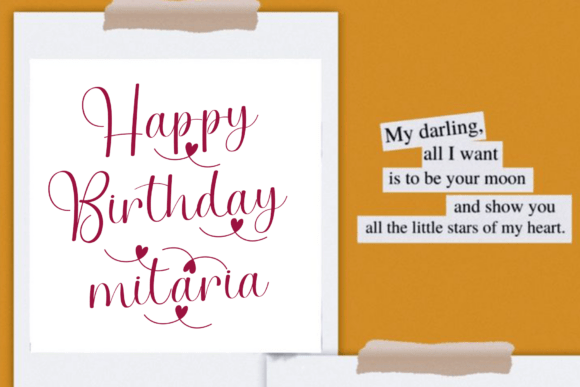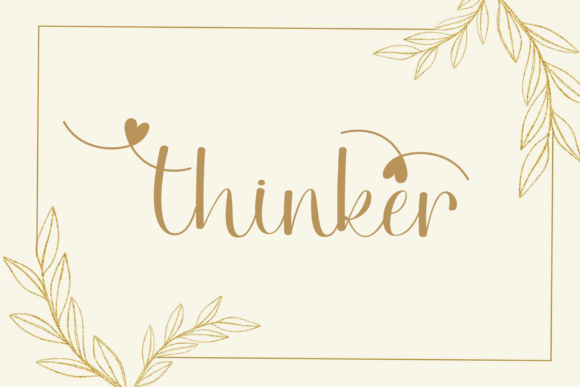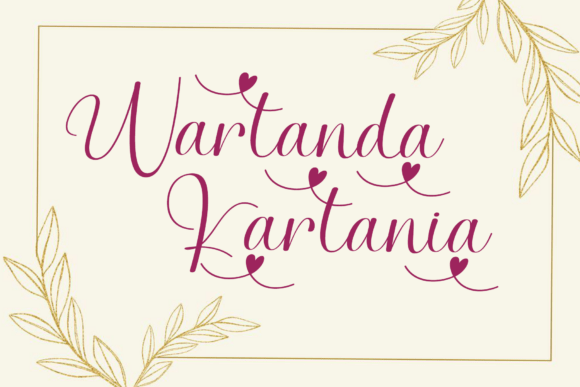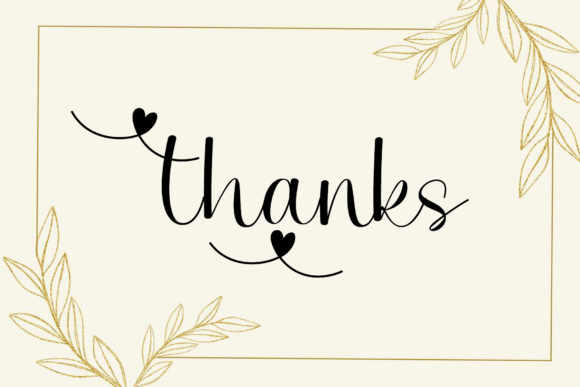
When Handwritten Style Meets Elegant Design
Do you ever find yourself doodling in a notebook, trying to capture the perfect handwritten style for a project? The search for that elusive, elegant script can be a challenge, but what if you stumbled upon a font that effortlessly combines modernity with a touch of romance?
Enter the Brilliant Calligraph Font, a stunning, modern, and stylized handwritten script font designed to elevate your designs. With its smooth, fluid strokes and lovely ornamental curves, this font is perfect for custom sublimation designs, boutique branding, and personalized gifts. Its consistent weight and clean connections ensure excellent legibility, making it a valuable addition to any designer’s toolkit.
Brilliant Calligraph Font Key Features
- Font Style: Elegant, cursive script with a touch of sophistication and whimsy
- Unique Characteristics: Features a unique blend of traditional calligraphy and modern flair, with intricate flourishes and subtle texture
Designer Review: Brilliant Calligraph Font
I recently had the chance to play around with the Brilliant Calligraph Font, and here are my thoughts.
- Beautiful, elegant script style that adds a touch of sophistication to any design.
- Works well for both digital and print designs, including invitations, posters, and branding materials.
- Slightly limited character set, which may be a concern for languages that require a wide range of special characters.
- Not as versatile as some other calligraphic fonts, which may limit its use in certain design contexts.
Overall, I think the Brilliant Calligraph Font is a great choice for designers who want to add a touch of elegance to their work. While it has some limitations, its beautiful script style and customization options make it a valuable addition to any design toolkit.
Tips for Getting the Most Out of Brilliant Calligraph Font
Use the font in conjunction with other elegant or vintage elements to create a unique and eye-catching design. Experiment with different font sizes and colors to create visual interest. Use the font to add a touch of sophistication to invitations, wedding stationery, or other special occasion designs.
Brilliant Calligraph Font is ideal for creating elegant and sophisticated designs, such as:
- Special occasion cards and invitations
- Editorial and magazine designs
- Business cards and letterhead
Alternatives to Brilliant Calligraph Font
Carolyna Pro is a modern calligraphy font with a elegant and refined touch. It’s perfect for wedding invitations, branding, and other high-end designs where sophistication is key. Compared to Brilliant Calligraph Font, Carolyna Pro has a more subtle and understated feel, making it ideal for designs that require a touch of luxury without being too showy.
Alex Brush is a handwritten font with a beautiful, flowing script. It’s great for designs that require a personal and emotive touch, such as wedding stationery, quotes, and social media graphics. In comparison to Brilliant Calligraph Font, Alex Brush has a more relaxed and casual feel, making it perfect for designs that need to convey a sense of warmth and approachability.
Great Vibes is a modern script font with a fun and energetic feel. It’s perfect for designs that require a sense of excitement and playfulness, such as event promotions, social media campaigns, and youth-focused branding. Compared to Brilliant Calligraph Font, Great Vibes has a more dynamic and lively feel, making it ideal for designs that need to grab attention and convey a sense of enthusiasm.